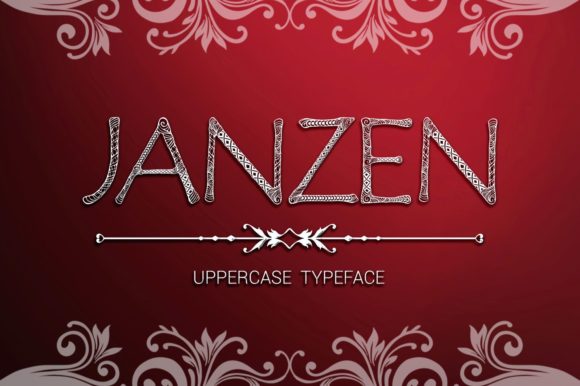
Indulge in the exquisite allure of Janzen, a meticulously crafted decorative uppercase font that will elevate your creations into captivating works of art. The textures and charm it exudes are simply unparalleled, making it a true gem for those seeking to infuse their designs with a touch of sophistication and personality.
Unleash your creativity with Janzen, the perfect companion for monograms and adding a distinctively branded flair to your content. Allow it to ignite your imagination and take your expressions to extraordinary new heights. Whether it's for personal or professional endeavors, Janzen promises to leave an unforgettable impression.
Embrace the opportunity to make your designs stand out with Janzen's effortless elegance and captivating charm. Each letterform is a testament to the artistry behind its creation, ensuring that your creations exude a level of refinement that is sure to turn heads.
Janzen is not just a font; it's an invitation to unleash your inner artist and create something truly extraordinary. Join the creative movement and let Janzen inspire you to push the boundaries of your imagination. The possibilities are endless, and the results will be nothing short of stunning.
Don't settle for ordinary fonts. Choose Janzen and elevate your designs to the realm of the truly exceptional. Its decorative charm and uppercase presence will make your creations shine brighter than ever before.
Experience the magic of Janzen today and embark on a creative journey that will leave you feeling inspired and fulfilled. Each handcrafted letterform is a testament to the passion and dedication that went into its creation, ensuring that your designs will possess a unique and captivating allure.